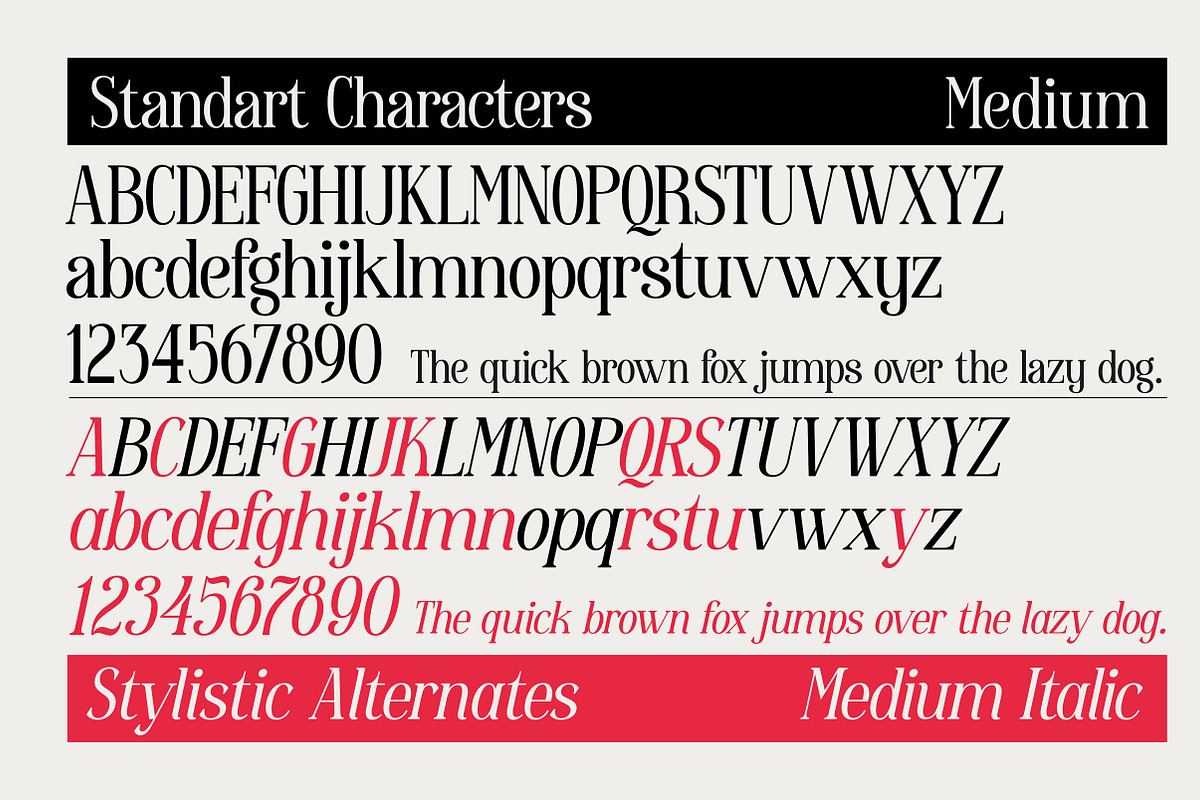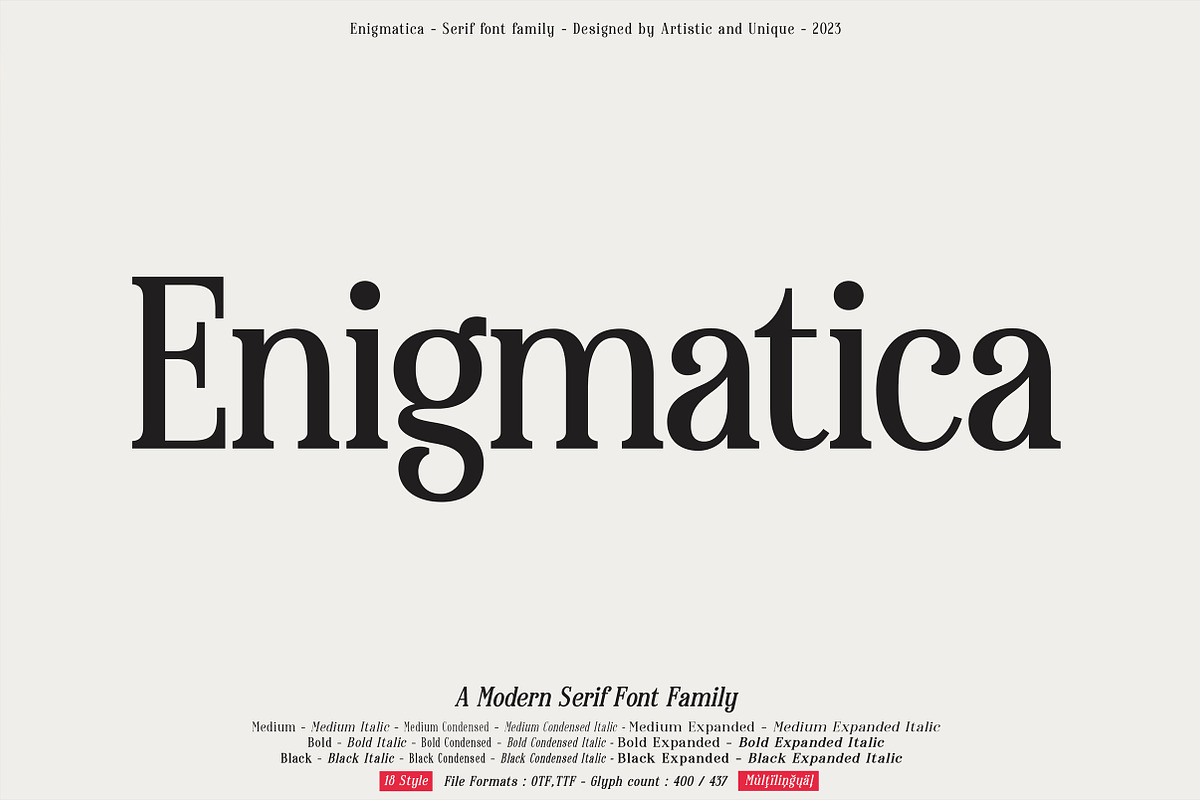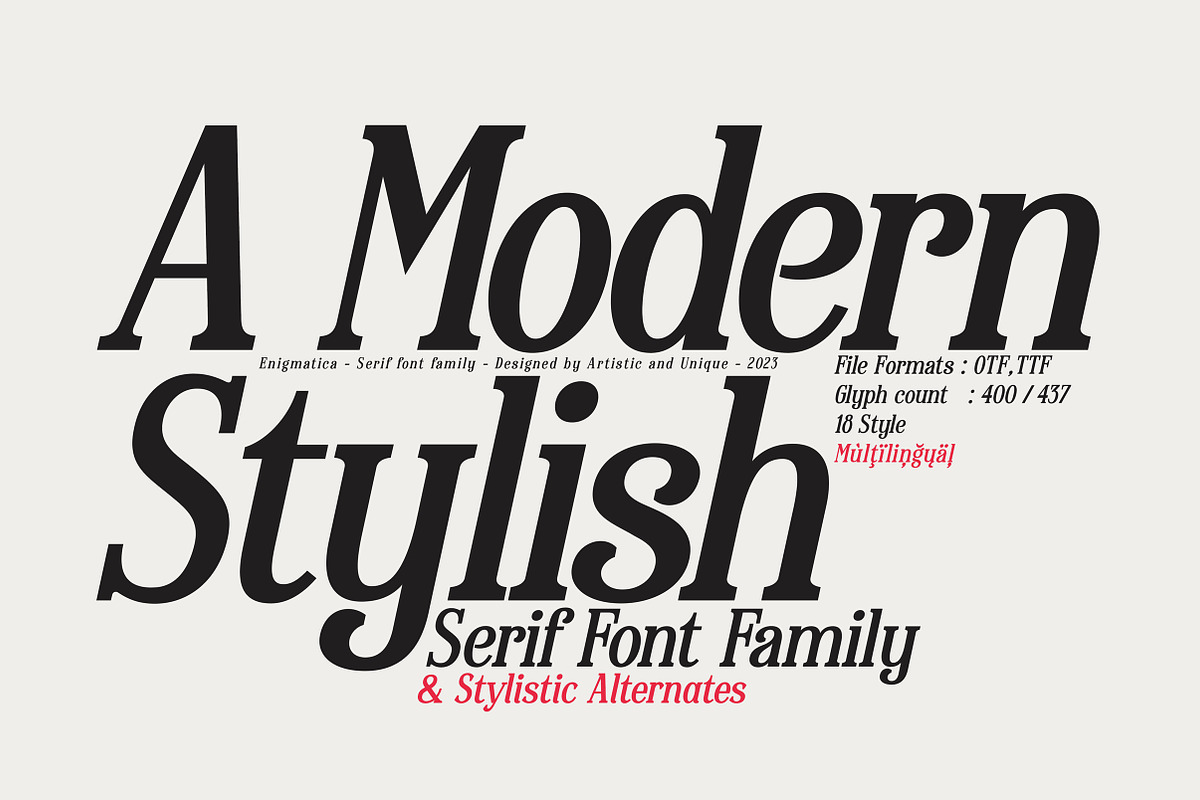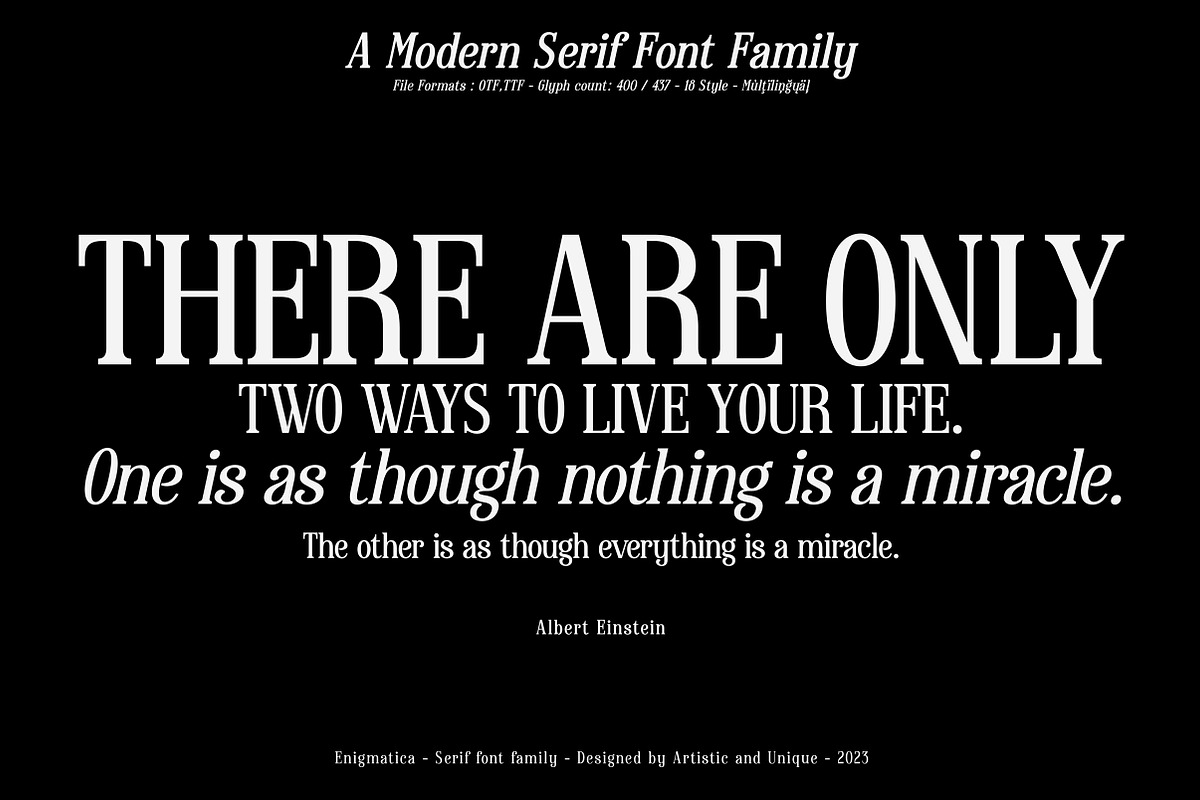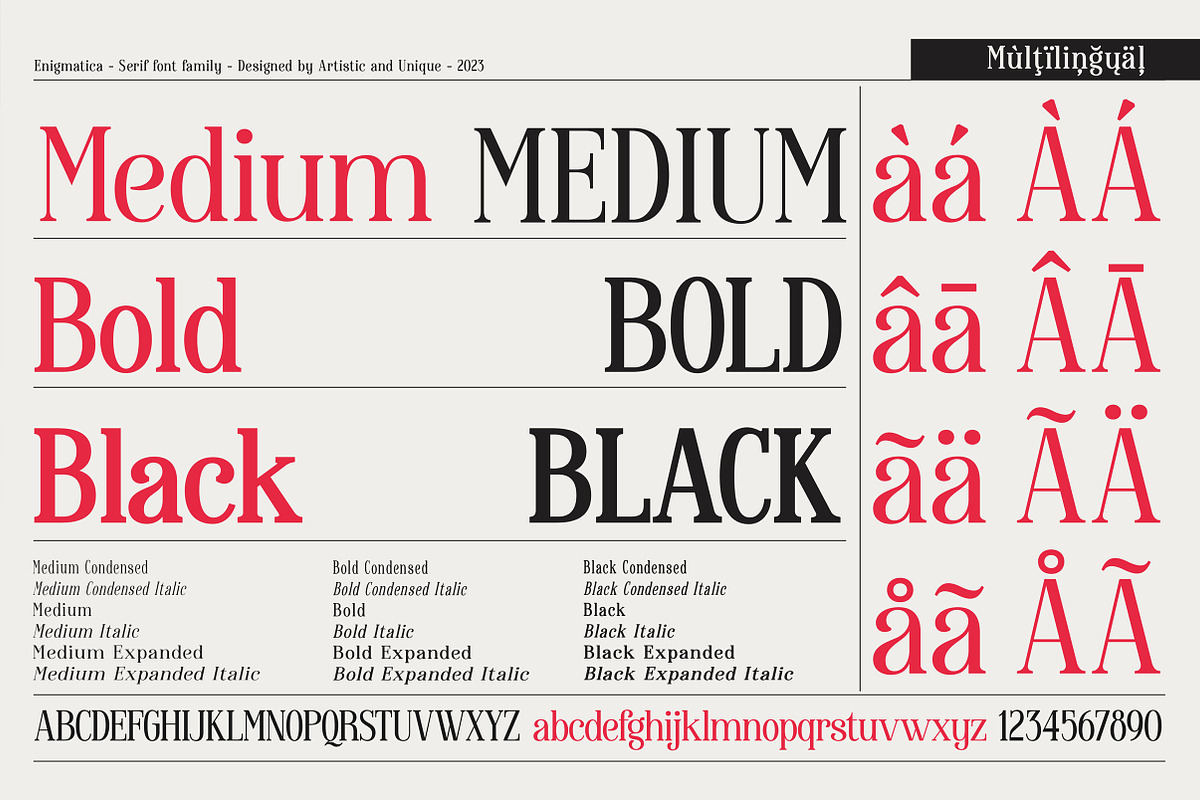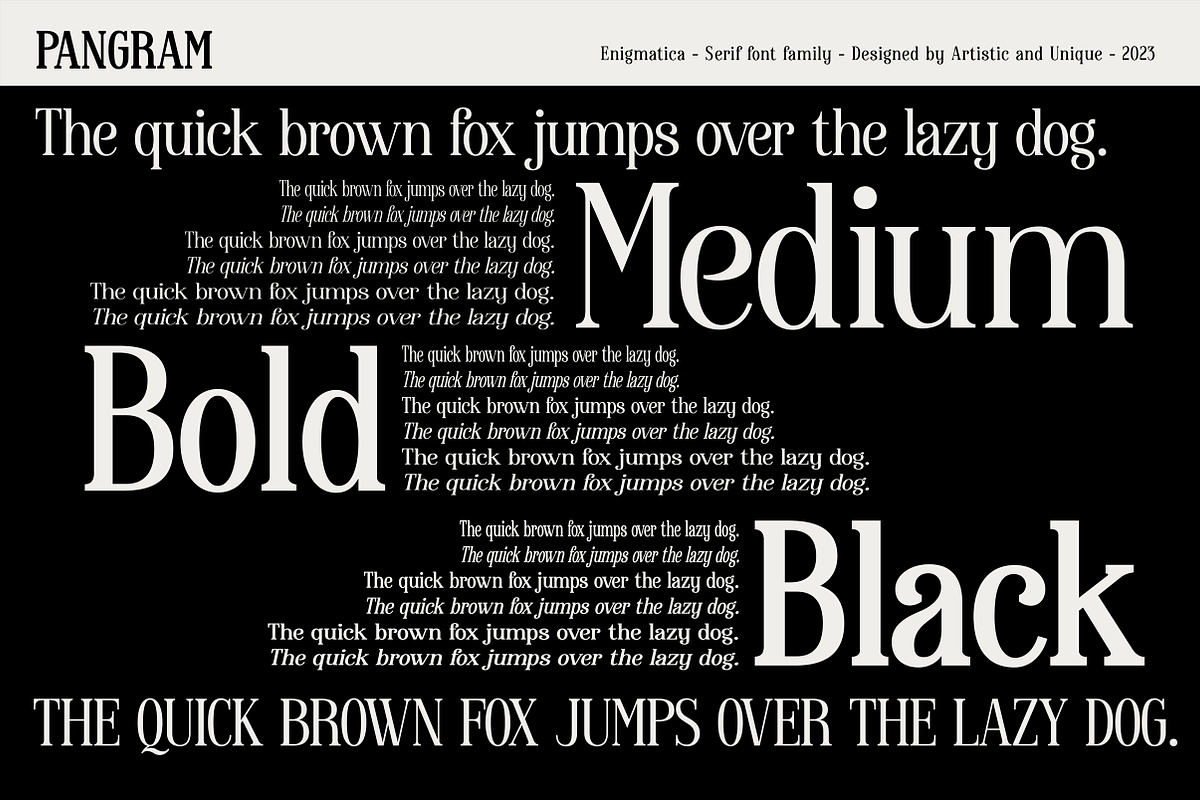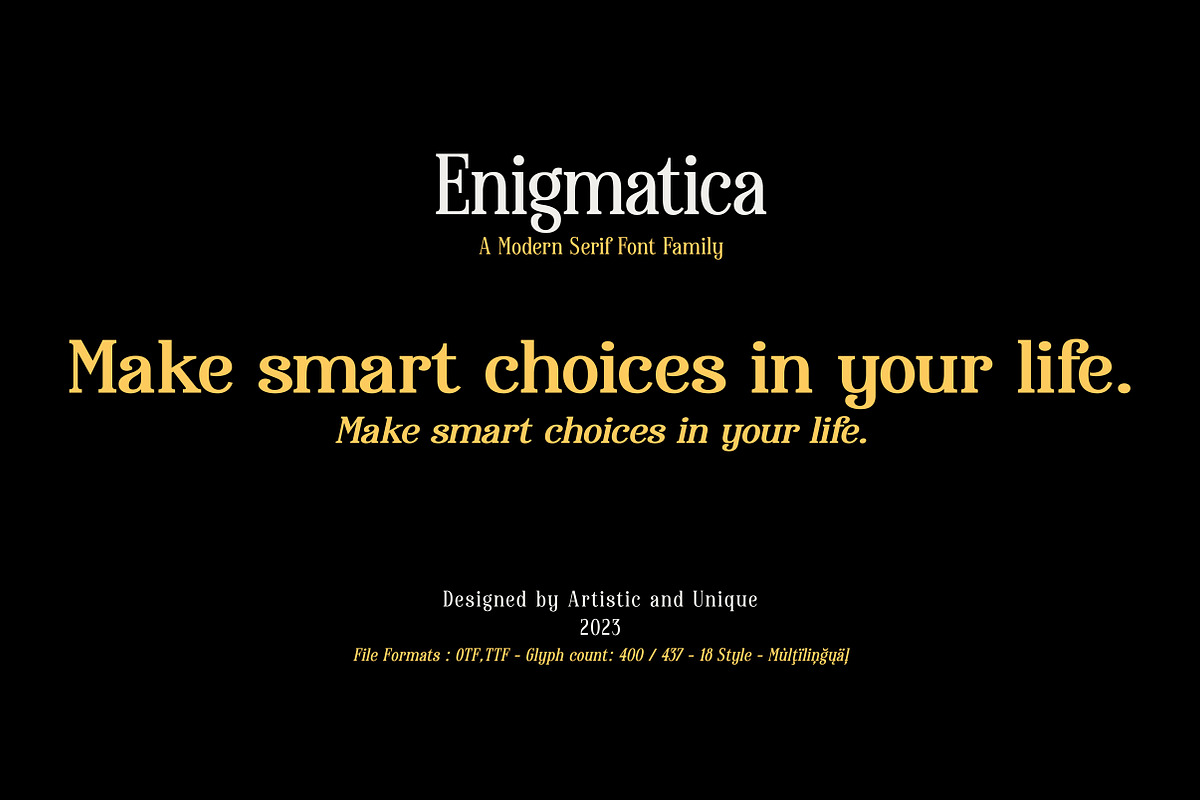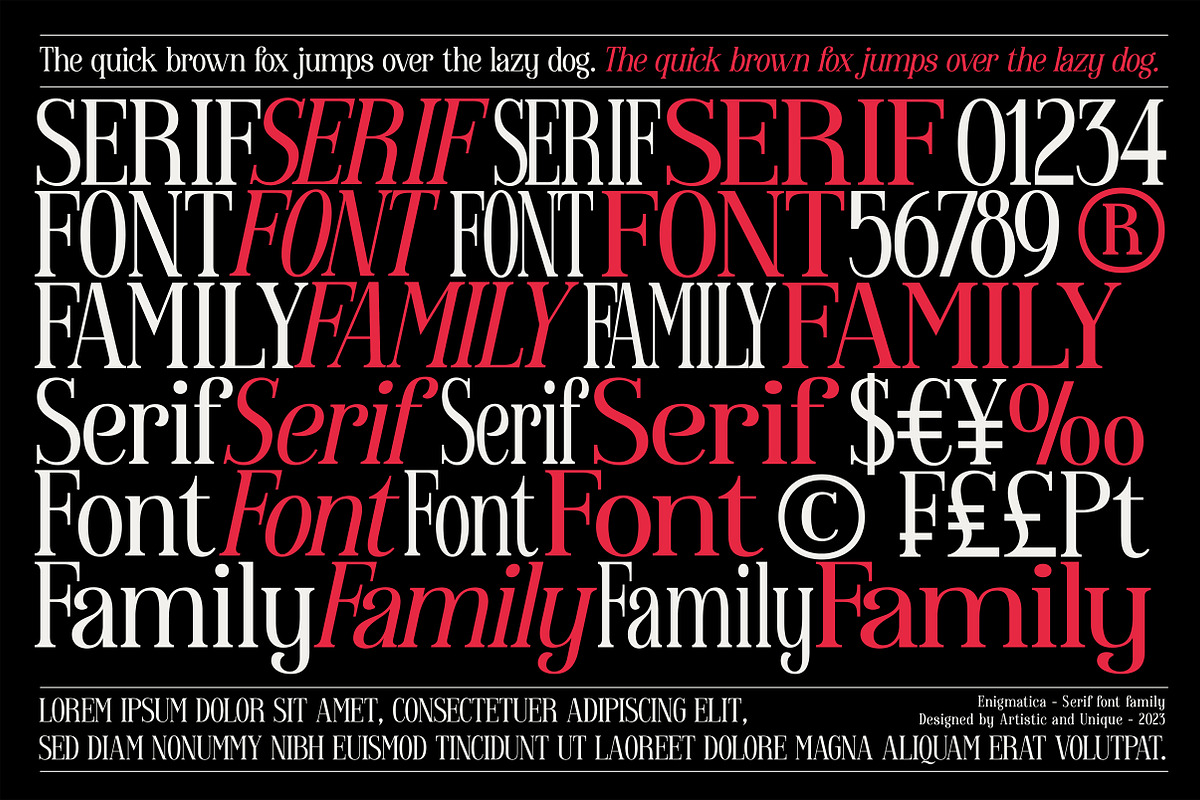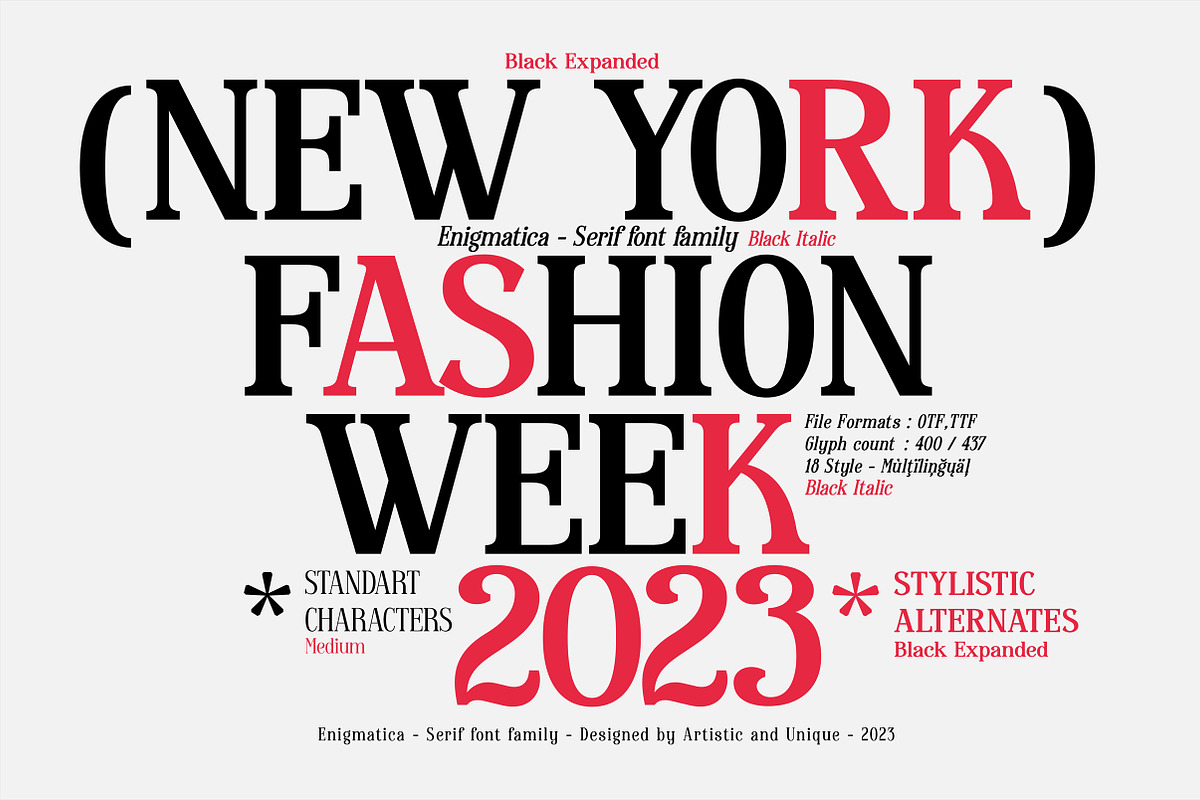
Enigmatica - Serif font family
Enigmatica is a stylistic and powerful serif font family with different alternative type designs. You will have the opportunity to enrich the content of your projects with alternative characters.
This font comes with multilingual support and 18 styles.It has an elegant structure that can be effective in the development of your projects.
Especially for editorials, magazines, books, branding, logo design, web design, headlines, movie titles etc.
If you are looking for a font with stylistic alternatives, Enigmatica serif font might meet your needs.
With this font you can create your unique designs.